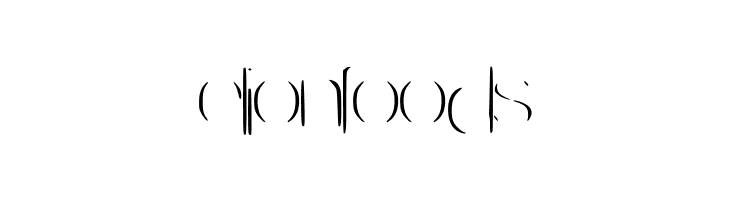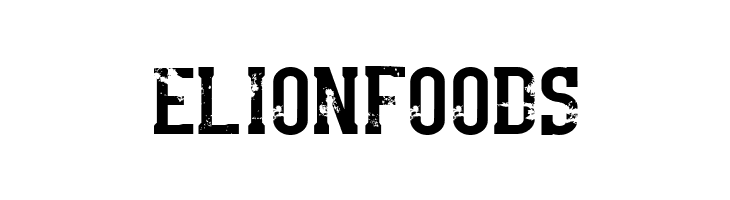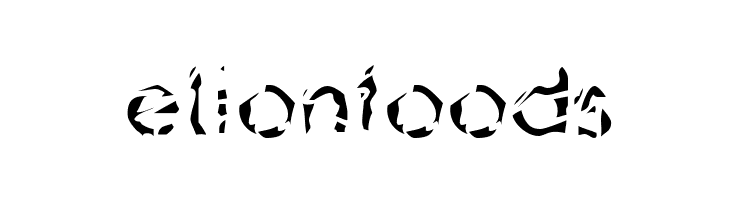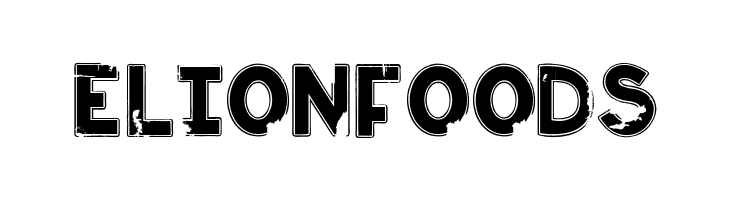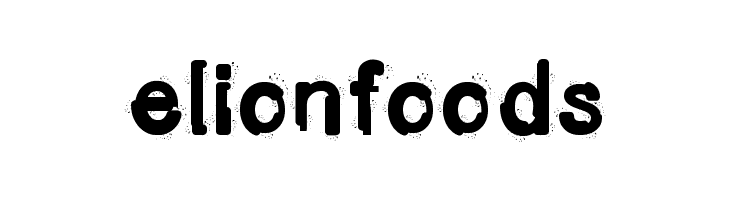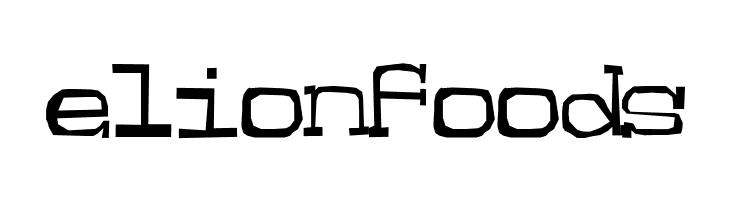
A bold, distressed font with a grunge, vintage style.
A decorative font with fragmented, abstract letterforms for a dynamic look.
A bold, decorative font with a layered, three-dimensional effect.
A bold, distressed font with a rugged, vintage look.
A bold, textured font with a modern, industrial feel.
A fluid, dynamic font with an organic, liquid-like appearance.
A bold, jagged, and italicized font with a rugged, distressed style.
A bold, vintage serif font with rounded serifs and a slightly condensed style.